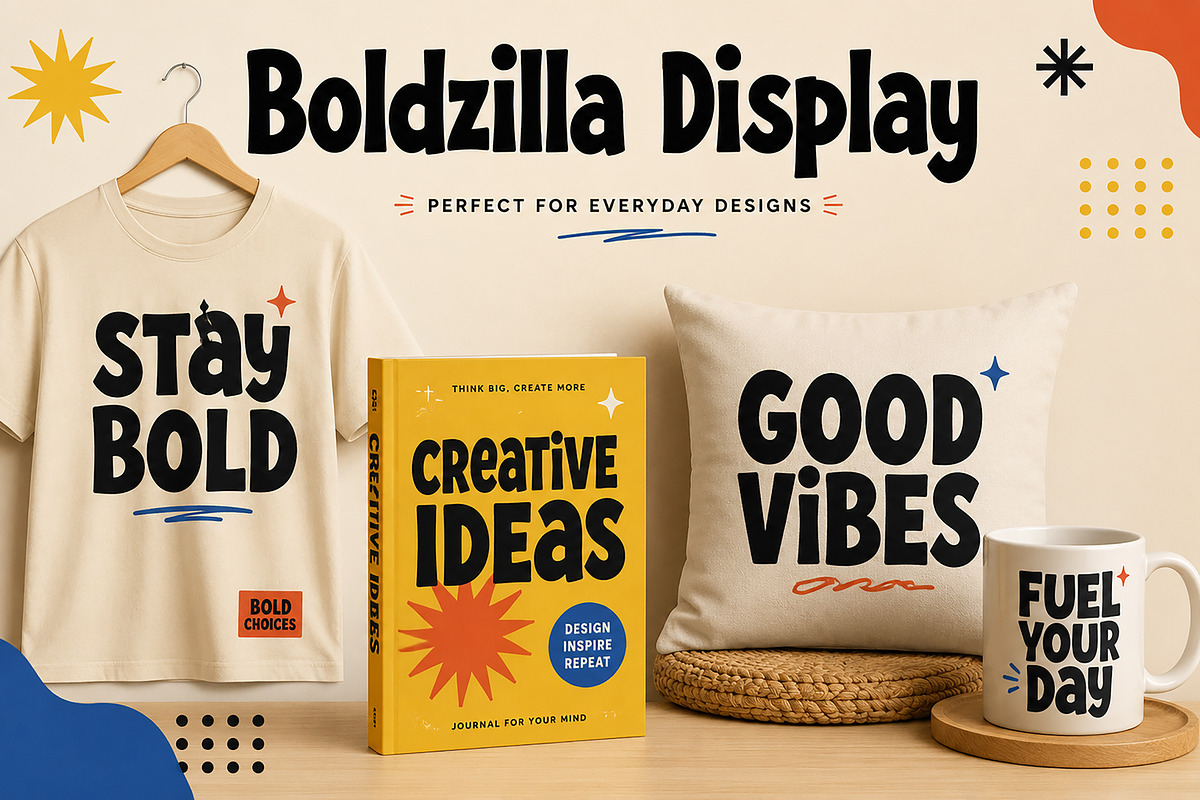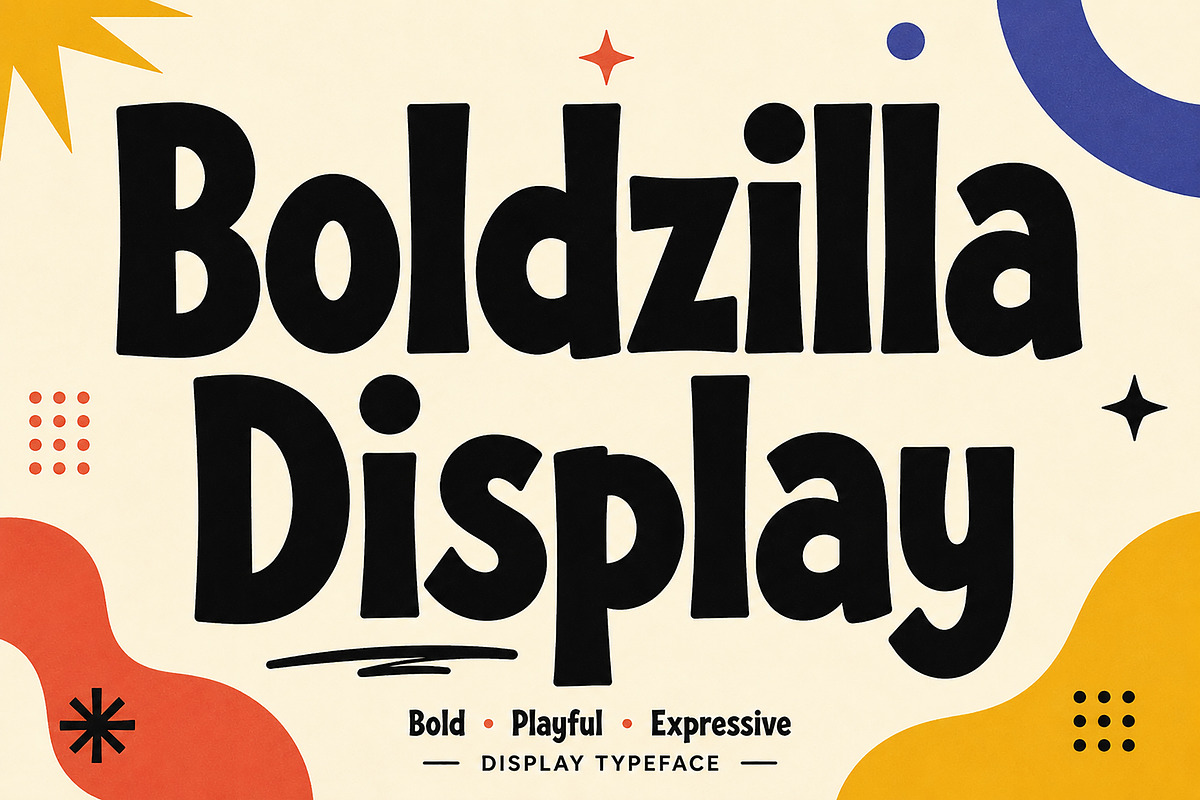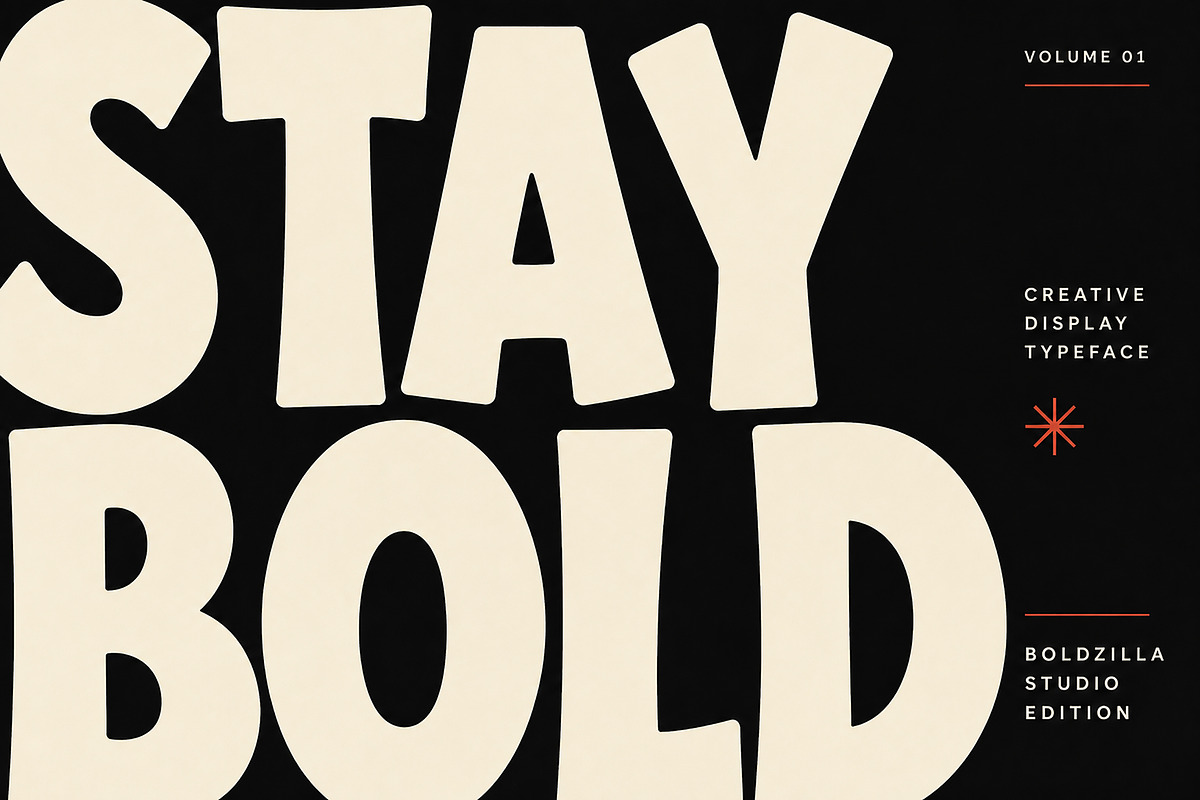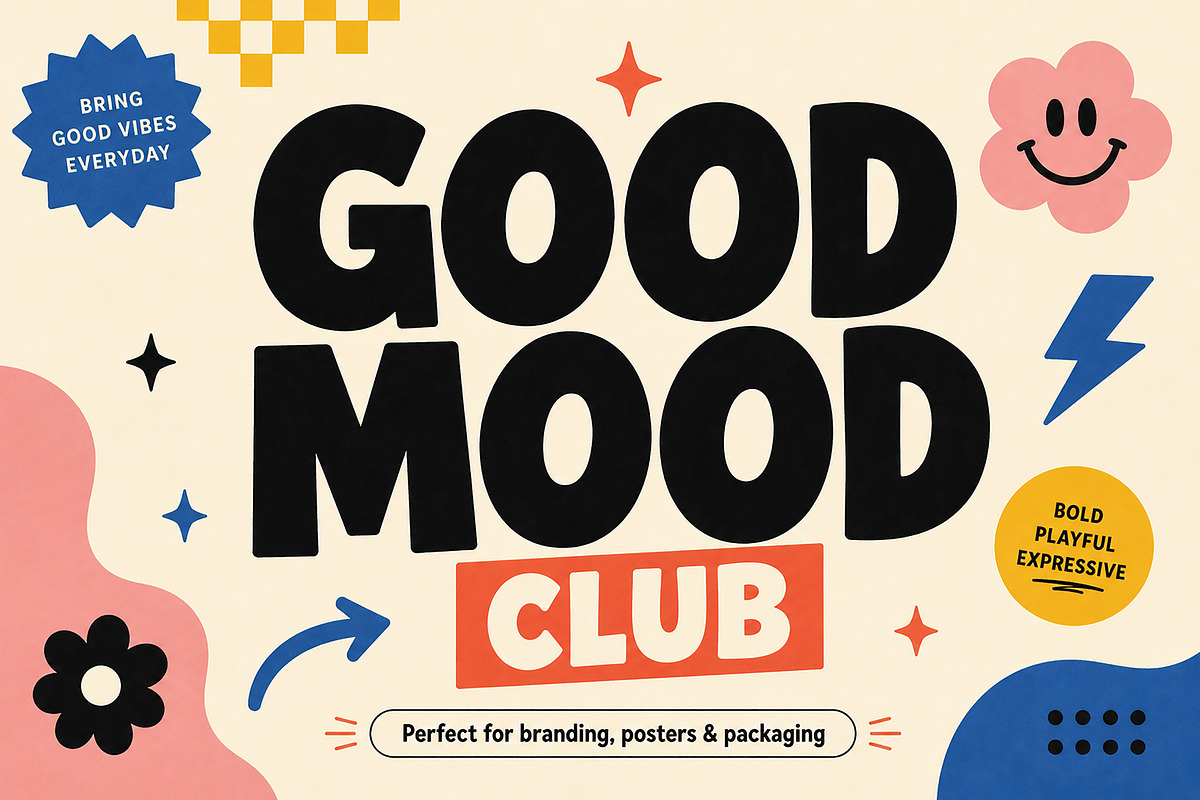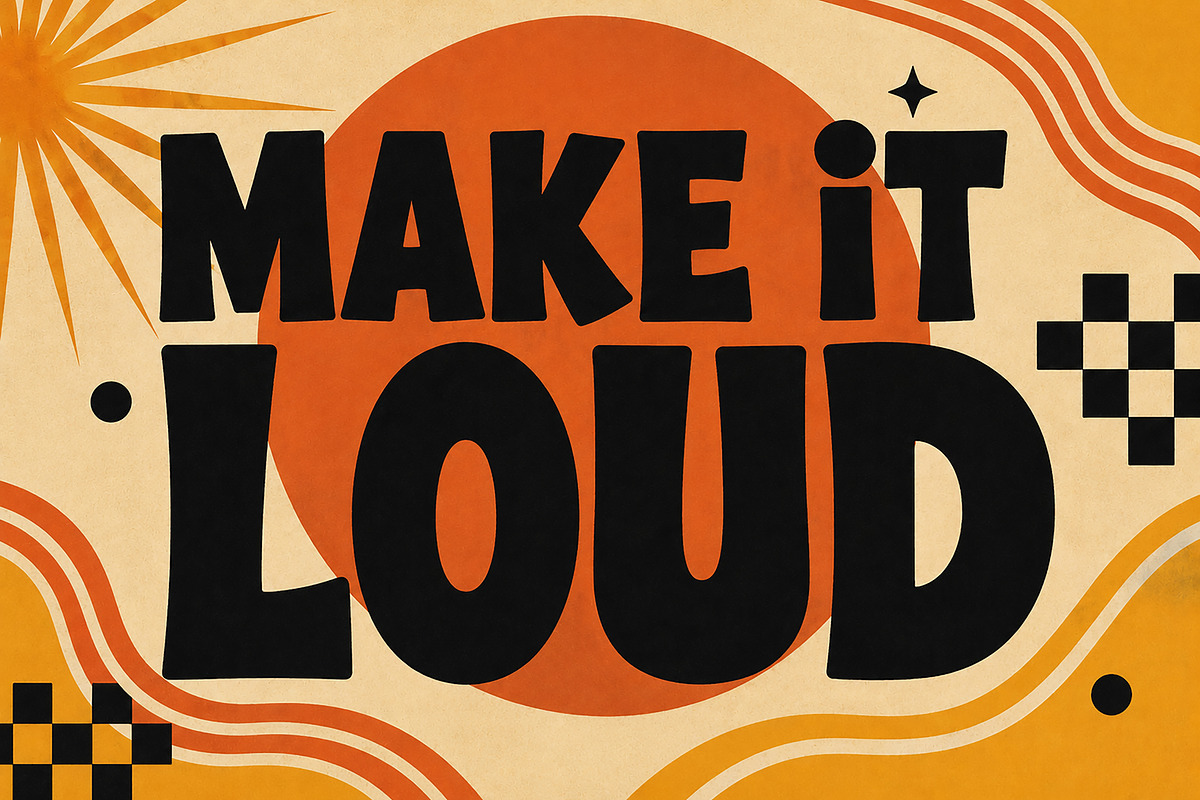
Boldzilla Display
Boldzilla Display – Bold Playful Retro Display Font
Product Description
Meet Boldzilla Display, a bold and playful display typeface created to make your designs impossible to ignore.
With its chunky letterforms, quirky personality, and strong visual presence, Boldzilla Display is perfect for designers looking for typography that feels fun, expressive, retro-inspired, and confidently modern. Its distinctive shapes work especially well at large sizes, making it an excellent choice for headlines and attention-grabbing creative projects.
Whether you're creating energetic branding, statement posters, merchandise, packaging, social media graphics, book covers, or editorial layouts, Boldzilla Display brings an instantly recognizable personality to your work.
Branding & Logo Design
Posters & Flyers
T-Shirt & Merchandise Design
Book & Magazine Covers
Bold Headlines & Titles
Advertising & Promotional Design
Retro-Inspired Designs
Stickers & Labels
Creative Editorial Layouts
Lifestyle Branding
Print & Digital Projects
Boldzilla Display features a bold, chunky display style with playful proportions and expressive character shapes. Its combination of retro personality and contemporary styling makes it suitable for both fun and professional creative applications.
Font Style: Display
Design Style: Bold, Playful, Retro, Quirky, Expressive
Boldzilla Display is designed primarily for display typography, so it performs best in headlines, titles, logos, posters, packaging, and other large-format applications.
Give your next project a louder, bolder personality with Boldzilla Display.